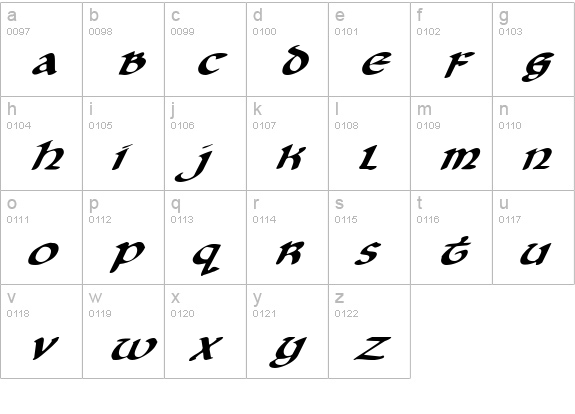
Cry Uncial Italic Font Details
Cry Uncial Italic is a distinctive, italic variant in the Cry typeface family \xE2\x80\x94 well suited to design and typography projects.
Introducing Cry Uncial Italic font, a captivating and elegant typeface that exudes a sense of sophistication and historical charm. With its unique, hand-crafted appearance and graceful letterforms, Cry Uncial Italic is the perfect choice for projects that require a touch of vintage flair. This exquisite font features delicate curves and flowing lines that give your text a distinctive and artistic look. Whether you're designing invitations, posters, or branding materials, Cry Uncial Italic will bring a touch of class and elegance to your project. Best of all, Cry Uncial Italic is available for free download at FontsMarket.com. Don't miss out on the opportunity to enhance your designs with this beautiful font. Download Cry Uncial Italic today and elevate your typography game to new heights.